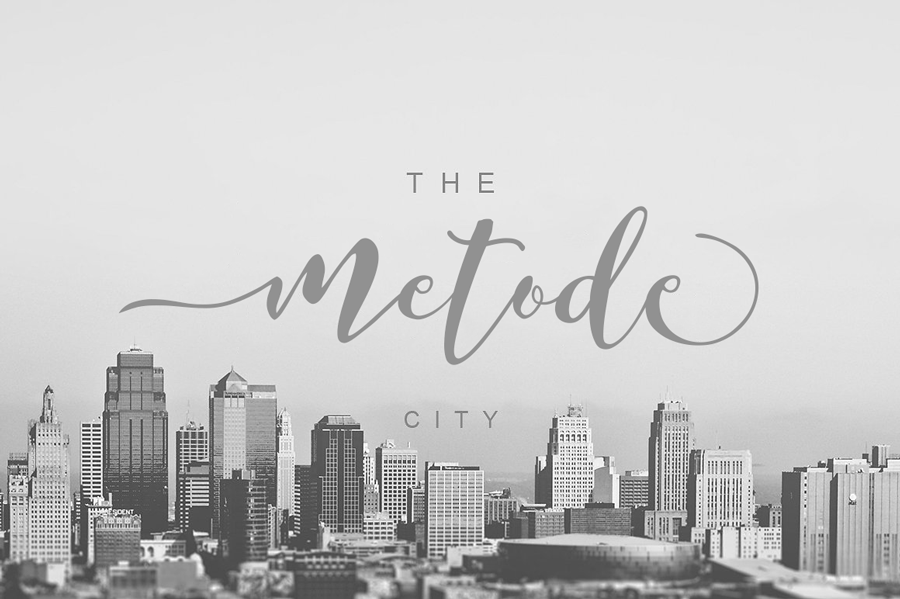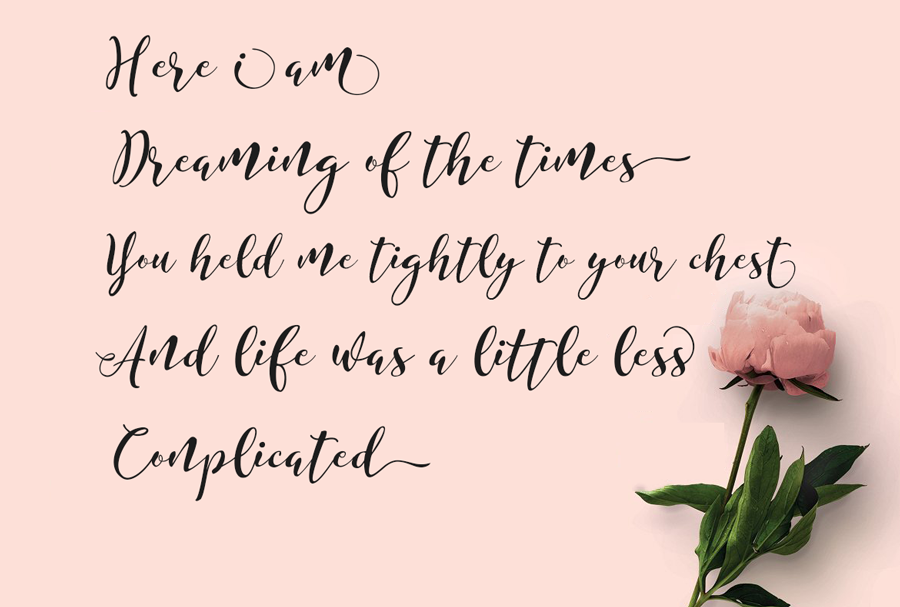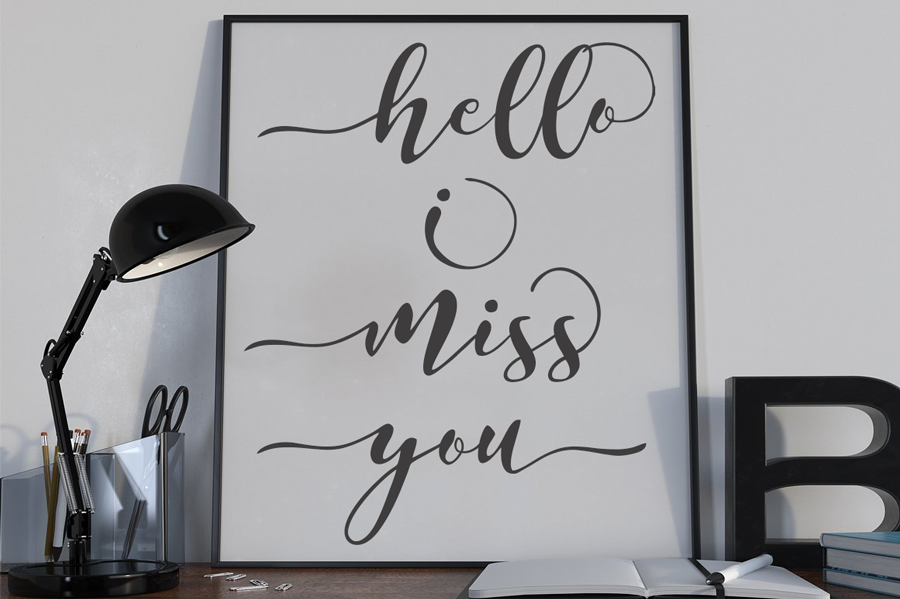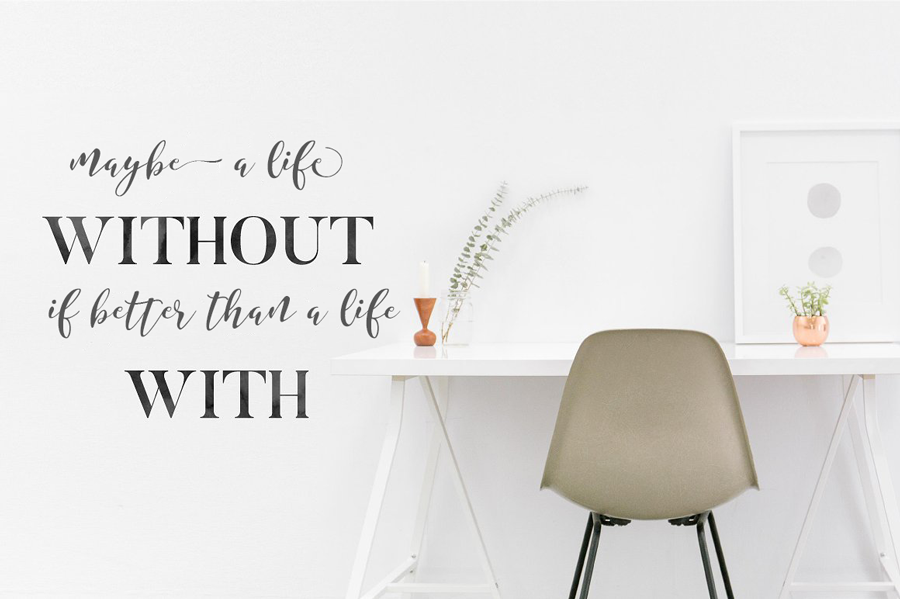
Marlowe Script Font – Free Demo
Marlowe – a new fresh handmade calligraphy font. Give your designs an authentic handcrafted feel.
Very suitable for greeting cards, branding materials, business cards, quotes, posters, and more!This font are perfect for wedding postcard. Or you can create perfect and unique design of your logo, blog, stationery, marketing, magazines and more